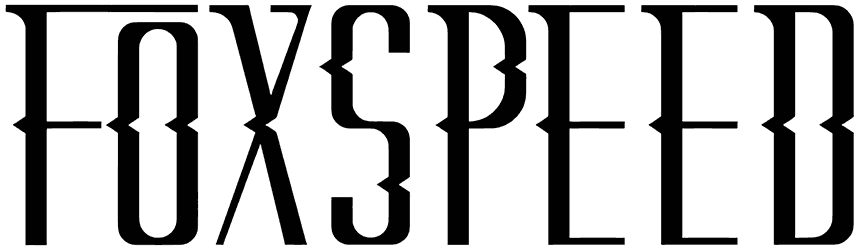
Fight Team 18 Font
It’s time to go with Fight Team 18 and represent your text layouts in a catchy style. Wherever it’s talking about power and competition this fight font shines! We recommend this one for your game designs and boyish apparel products, but it’s up to you. I bet it would appear perfectly.
Fight Team 18
Designed by: Woodcutter